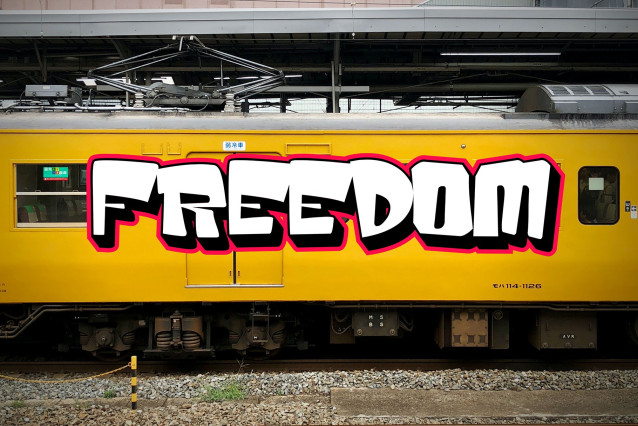
Badge Robo Font
Badge Robo Font – Layered Graffiti Font is created to capture the fearless, dynamic spirit of street art. With its layered design—regular, inner, and shadow—this graffiti typeface gives designers endless ways to add dimension and impact.
This layered graffiti font is bold, expressive, and built for projects that need attention. Perfect for posters, logos, album covers, murals, and event branding, Badge Robo makes sure your message feels alive with urban character.